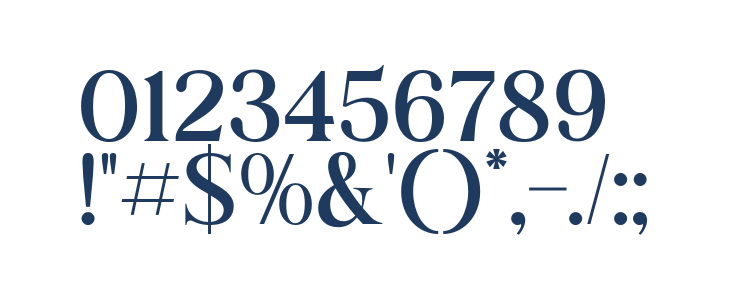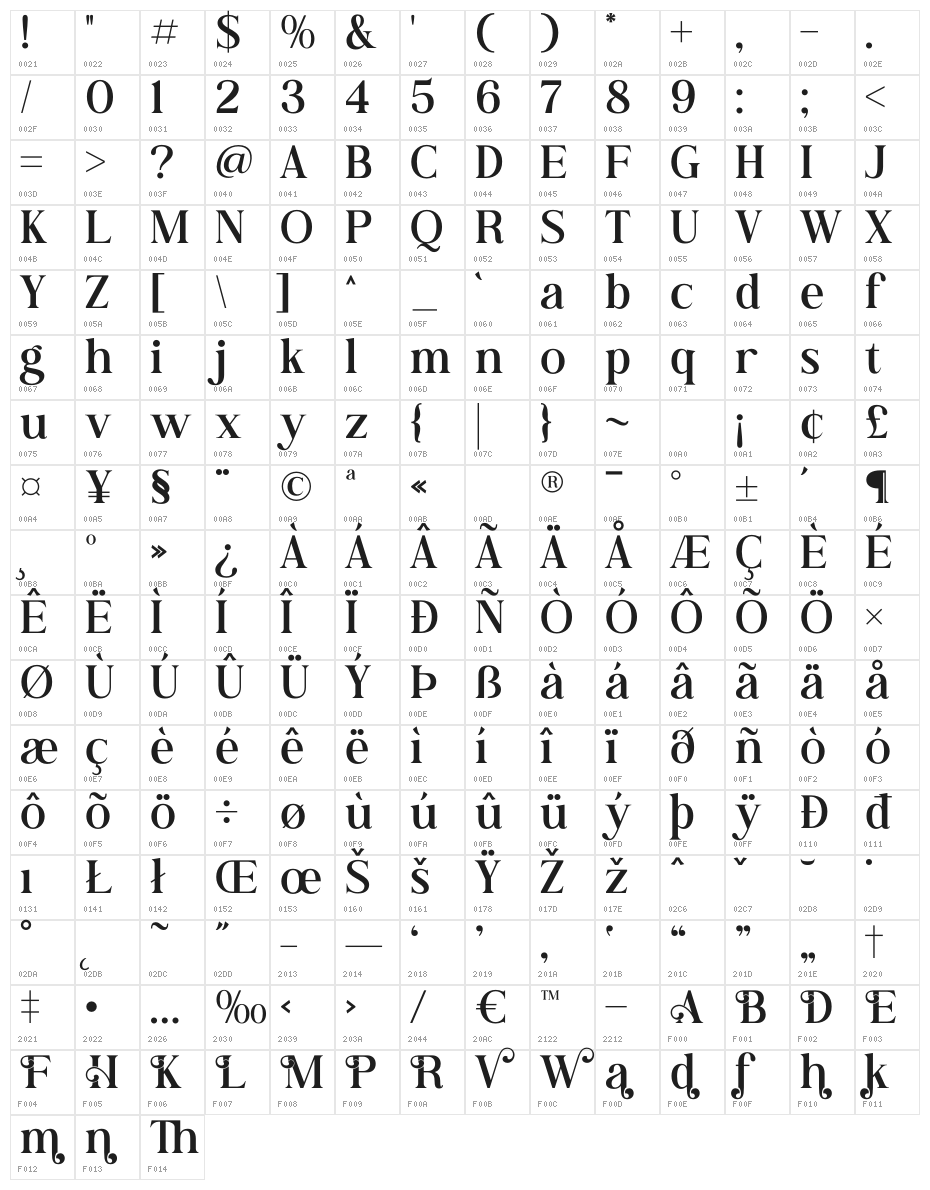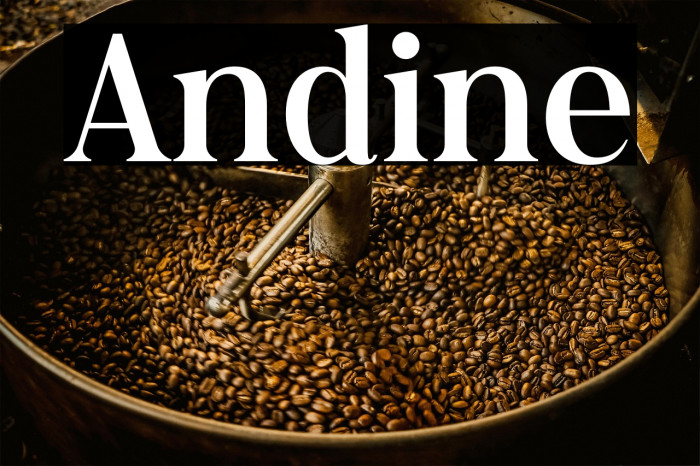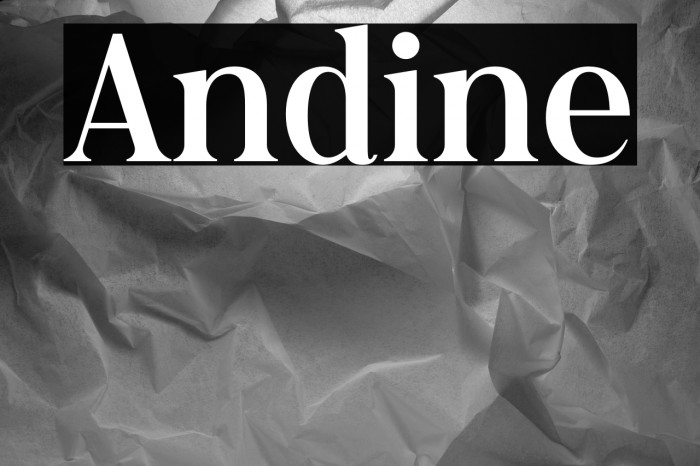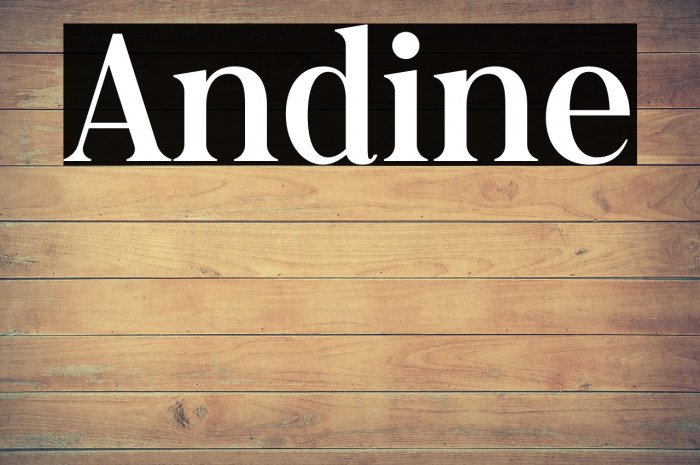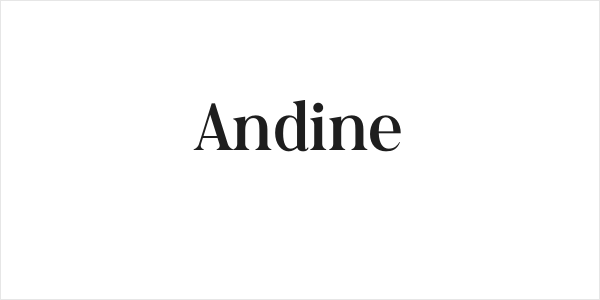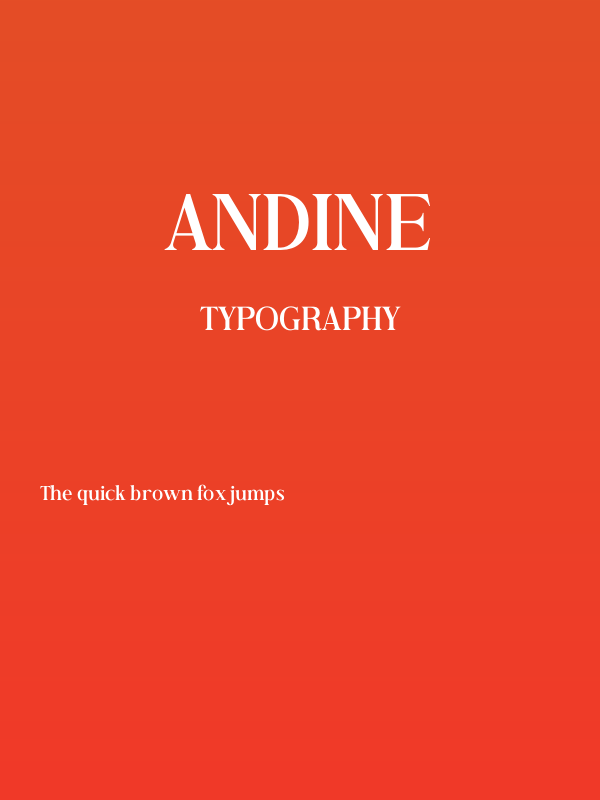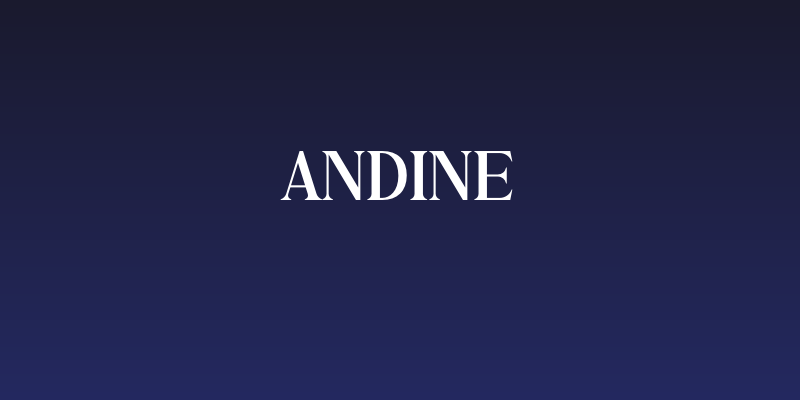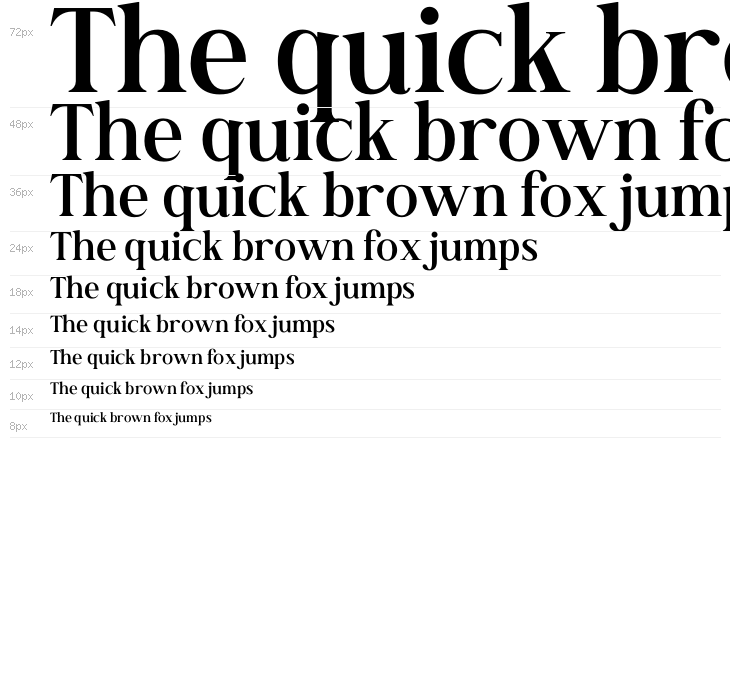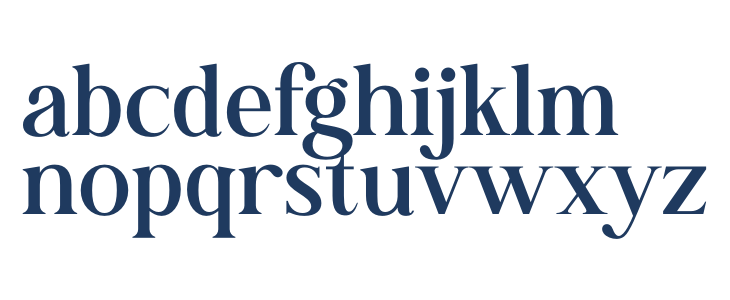
Andine Font
Andine Description
This font exhibits a classic serif style with elegant and refined strokes. The uppercase letters are bold and commanding, while the lowercase letters maintain a consistent and harmonious flow. The numerals are well-proportioned, ensuring readability and balance. Special characters are designed with attention to detail, adding a touch of sophistication. The overall appearance is traditional yet versatile, suitable for a variety of design applications.
| Overall Style | Classic |
| Use Case | Headlines, Body text, Logos |
| Proposed Projects | Ideal for editorial design, book covers, formal invitations, and branding projects that require a touch of elegance. |